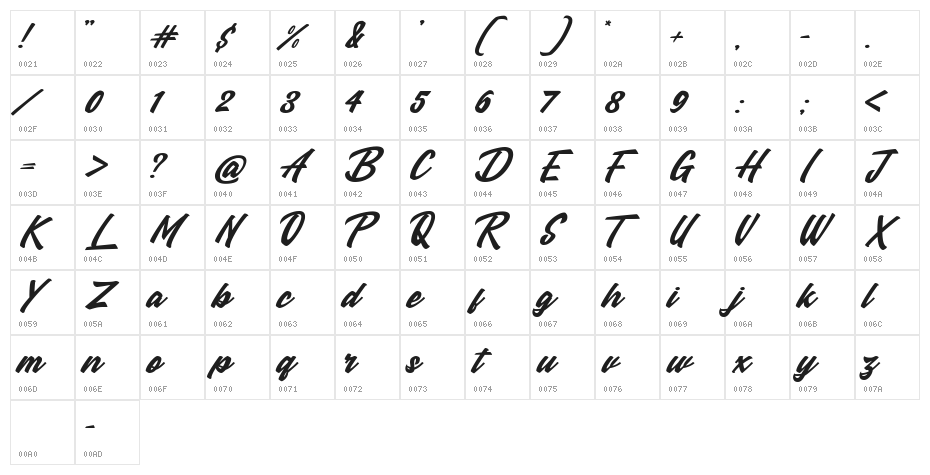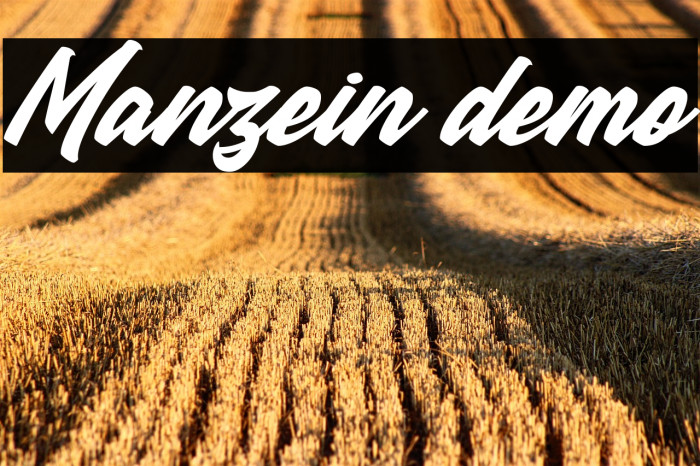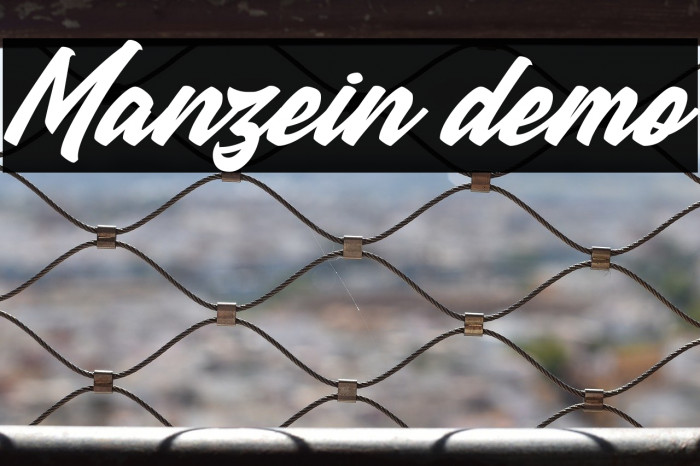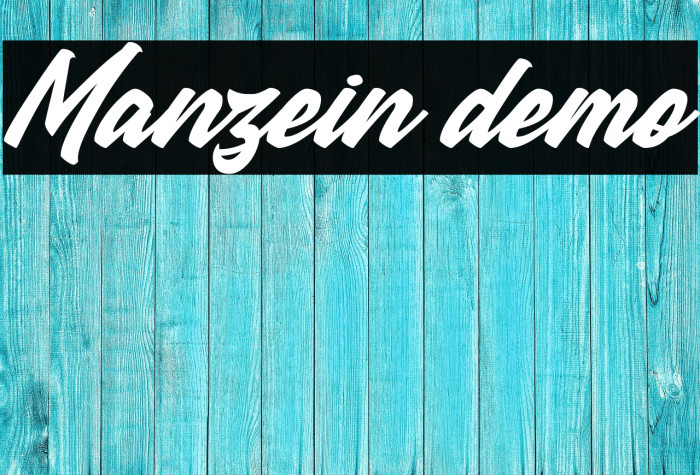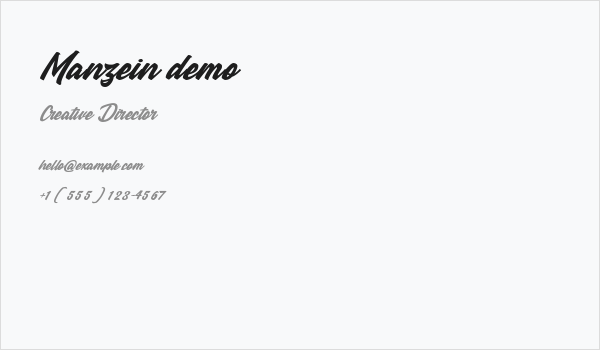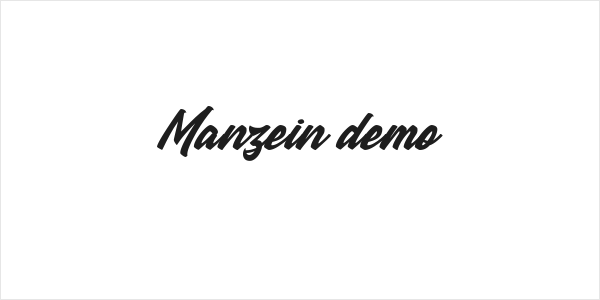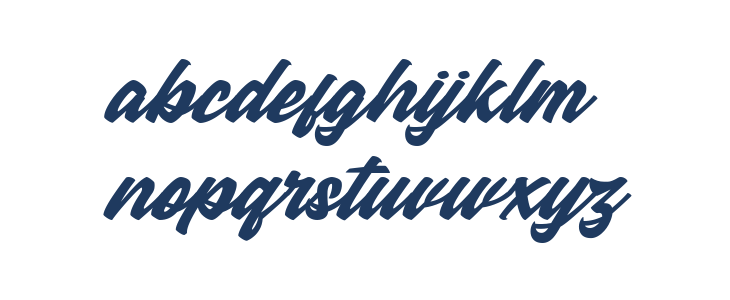
Manzein demo Font
Manzein demo Description
This font exudes a bold and dynamic script style, characterized by its fluid and connected letterforms. The strokes are thick and consistent, giving it a strong presence. The uppercase letters are slightly slanted, adding a sense of motion and energy, while the lowercase letters maintain a cohesive flow. The numerals and special characters are designed to match the overall aesthetic, ensuring uniformity across all glyphs. This font is ideal for projects that require a touch of elegance combined with a modern flair.
| Proposed Projects | Ideal for branding, logos, headlines, and invitations where a modern, elegant script is desired. |